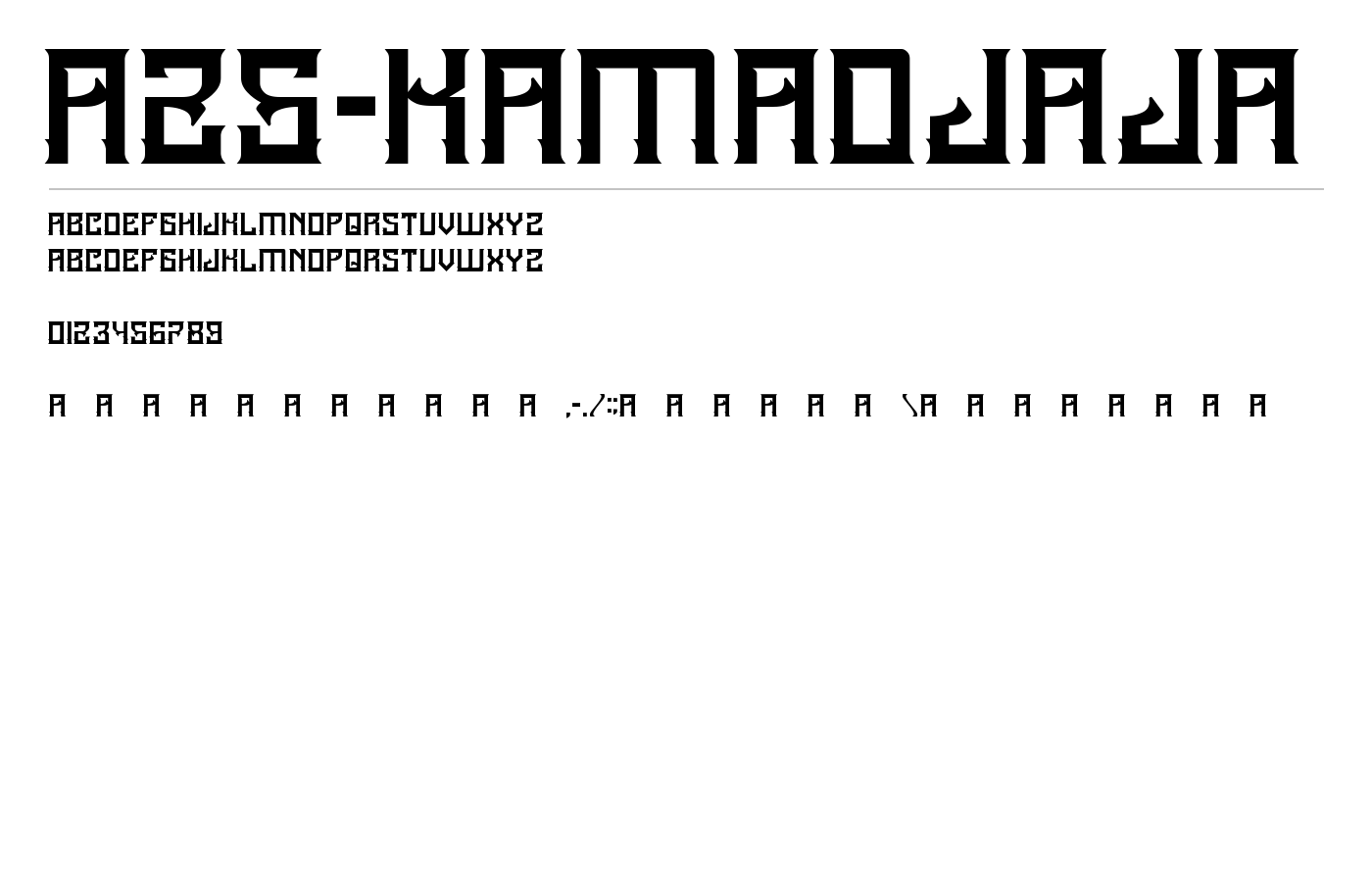
A25-KAMADJAJA is a bold, condensed serif font with strong, angular shapes and sharp contrast between thick and thin strokes, giving it a striking, architectural feel. Its distinctive cut-out details and square-like forms lend it a modern yet slightly ornamental character, ideal for eye-catching headlines, logos, or branding that demands a strong, confident presence. This font works best in display use where its unique style can stand out and add a powerful, contemporary edge to designs.
A25-KAMADJAJA Font
About A25-KAMADJAJA Font